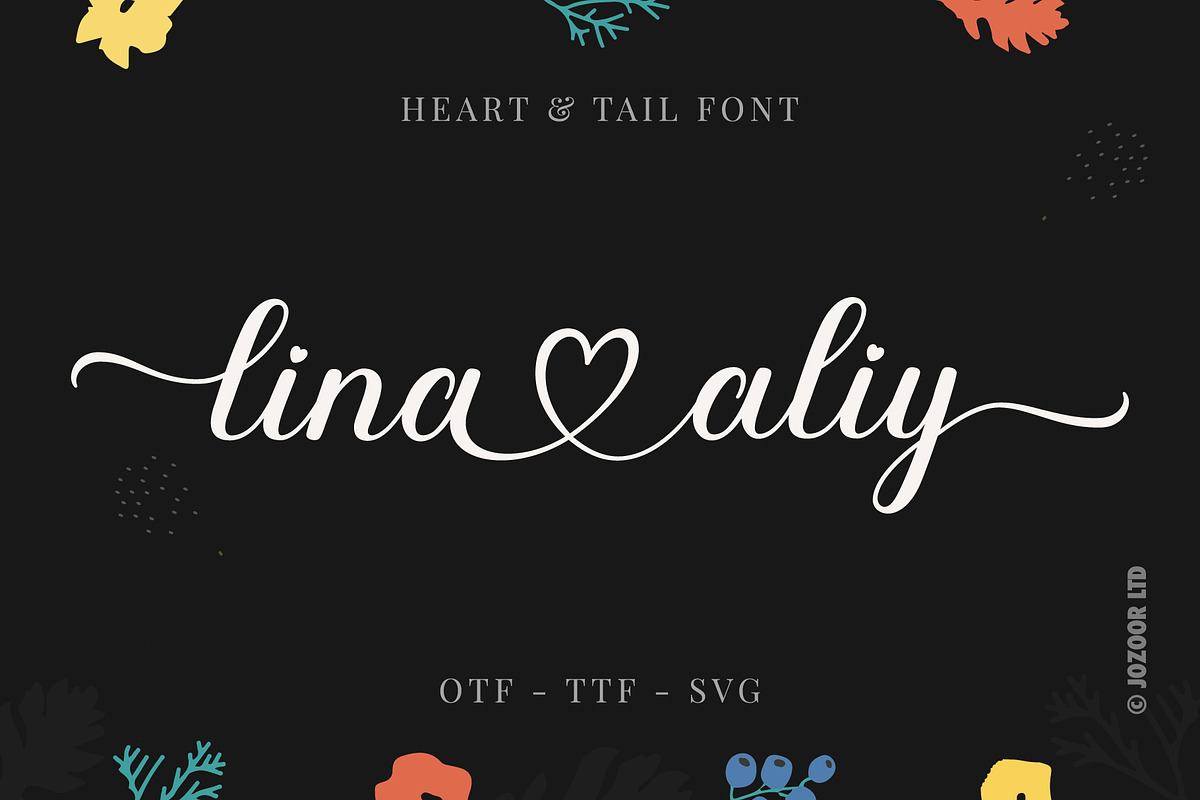
Habiby - Lovely Heart Script Font Free Download
Habiby – Lovely Heart Script Font Free Download is a romantic and playful handwritten font that adds a heartfelt charm to any design. Please note: you must purchase this font for commercial use, but you can test it through a free download. With its elegant curves, delicate swashes, and subtle heart accents, Habiby is perfect for wedding invitations, love letters, Valentine’s Day designs, feminine branding, and social media quotes.
This script font captures the emotion of handwritten notes and sweet gestures—ideal for projects that need to feel personal, warm, and expressive. Whether you’re crafting a logo or a sentimental card, Habiby – Lovely Heart Script Font Free Download brings grace and love to every word. Fully compatible with Adobe Illustrator, Photoshop, Canva, and more. Download it today for personal use and let your designs bloom with the romantic beauty of Habiby.